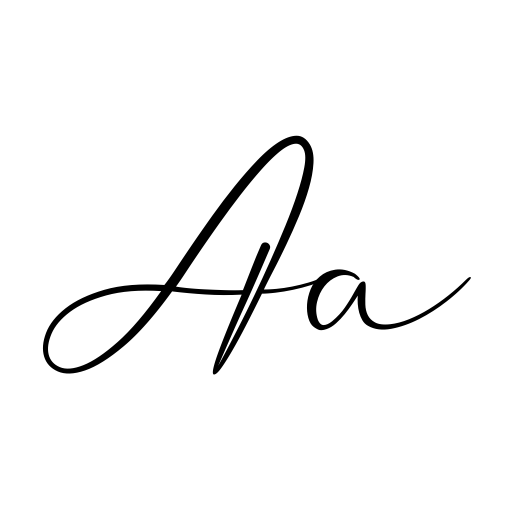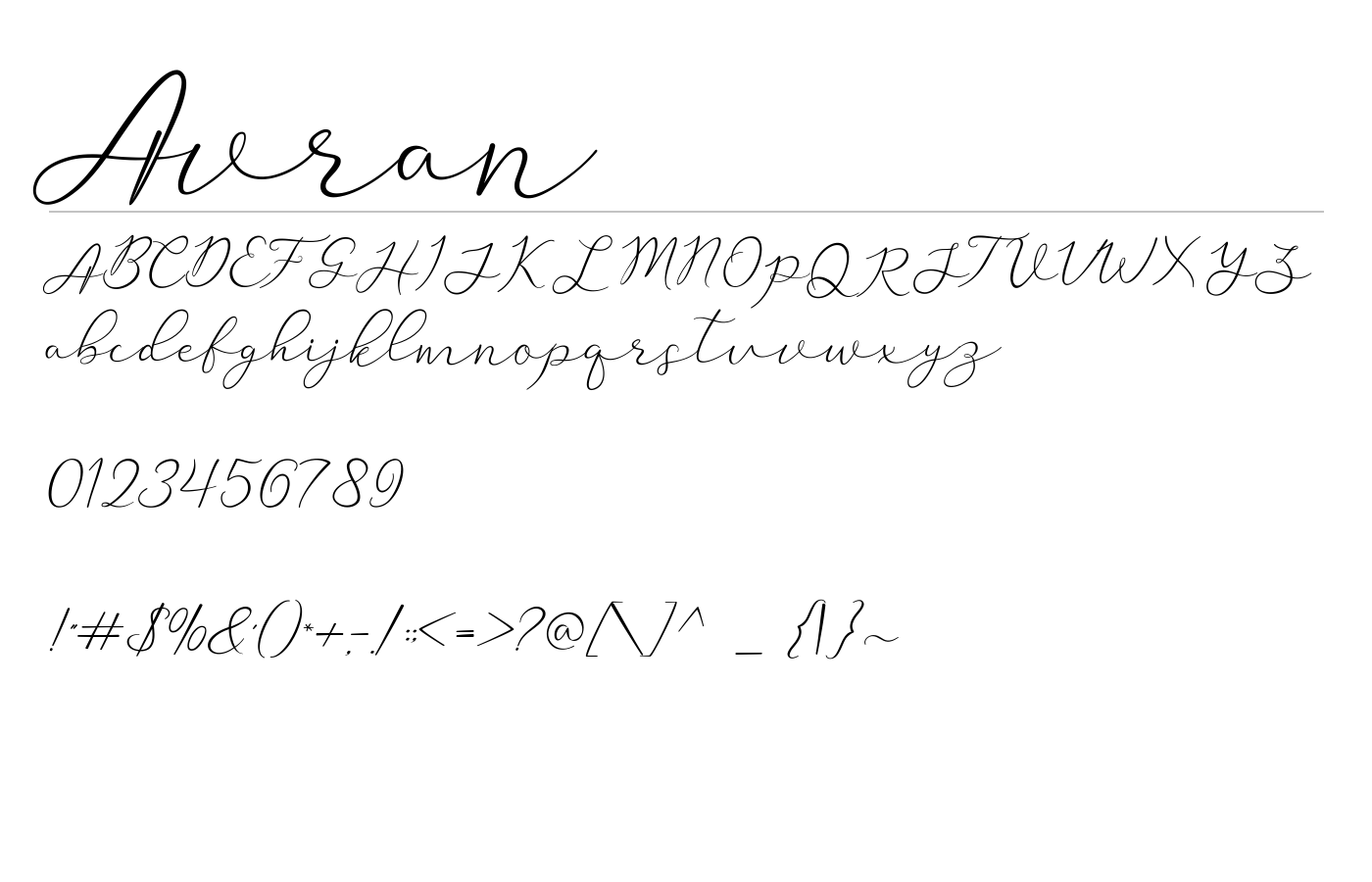
Avran is a delicate, elegant script font with slender, flowing strokes that evoke a sense of sophistication and grace. Its light weight and airy spacing make it ideal for luxury branding, wedding invitations, and refined editorial designs where a personal, handwritten touch is desired. This font’s graceful curves and smooth connections bring a stylish and romantic mood, perfect for projects needing a gentle yet polished character.
Avran Font
About Avran Font
| Font family | Avran Font |